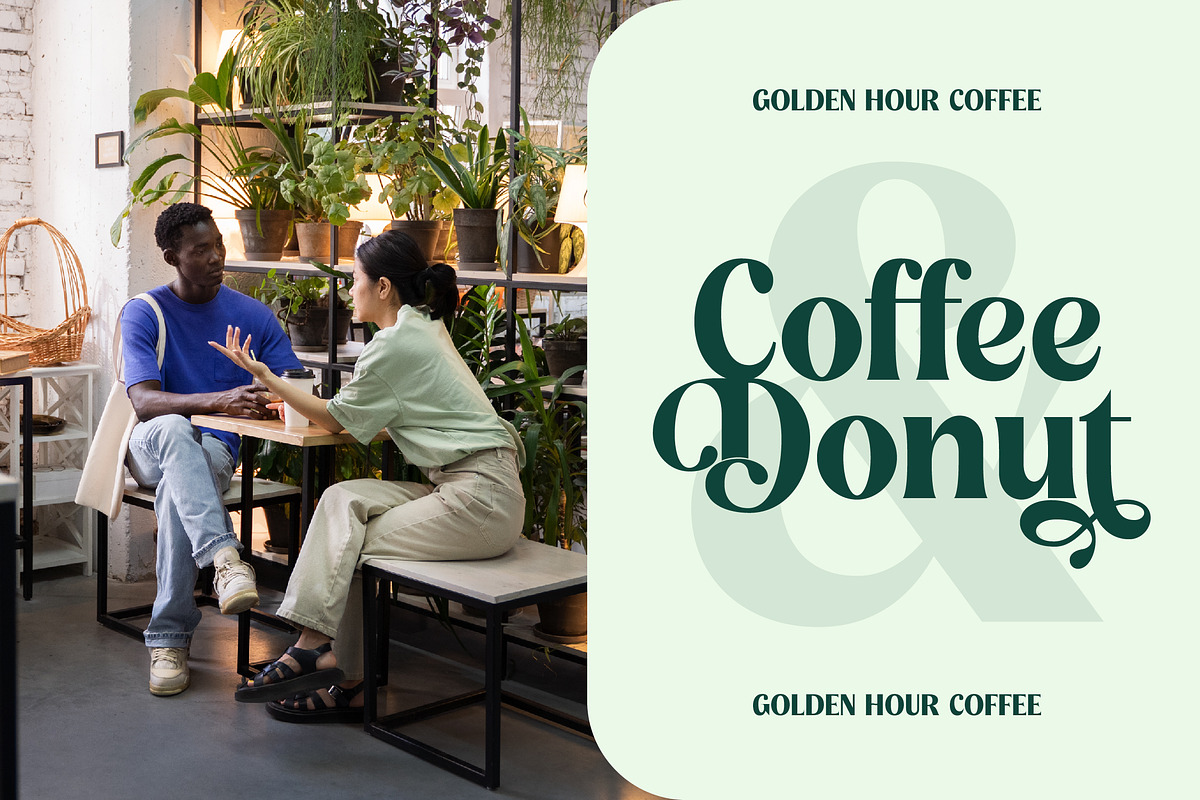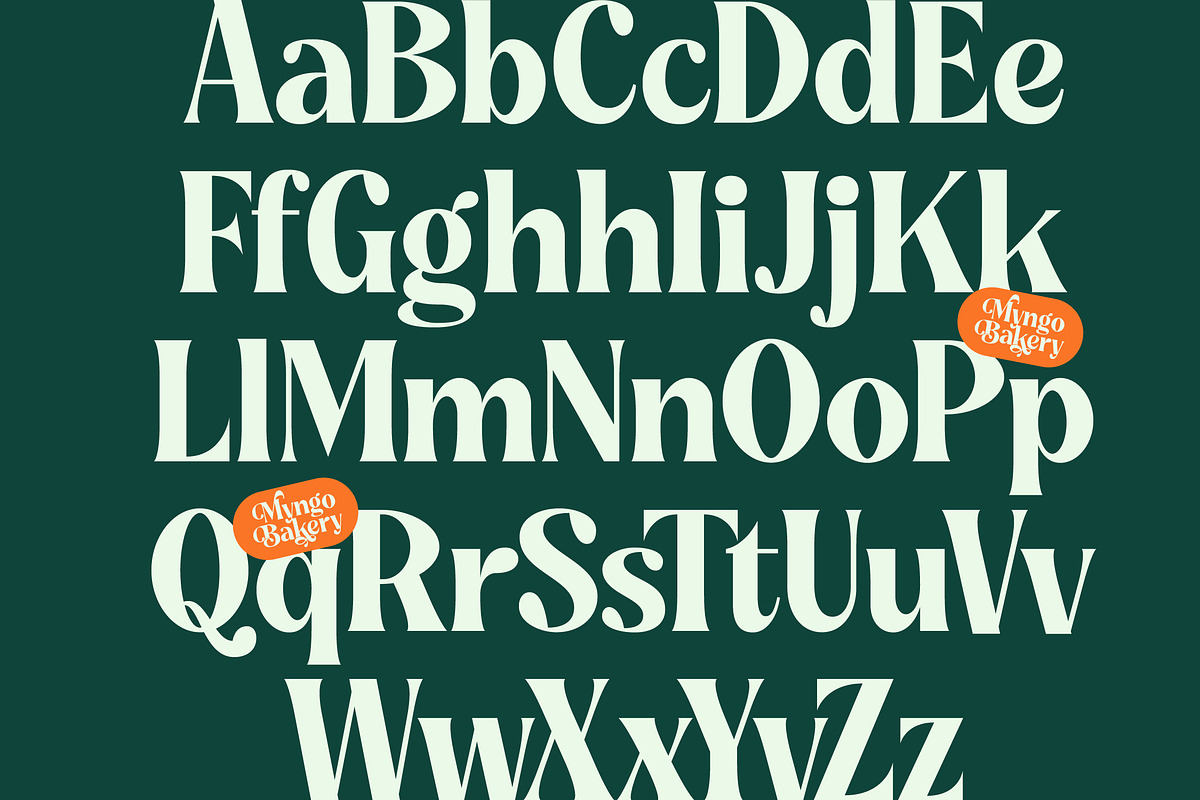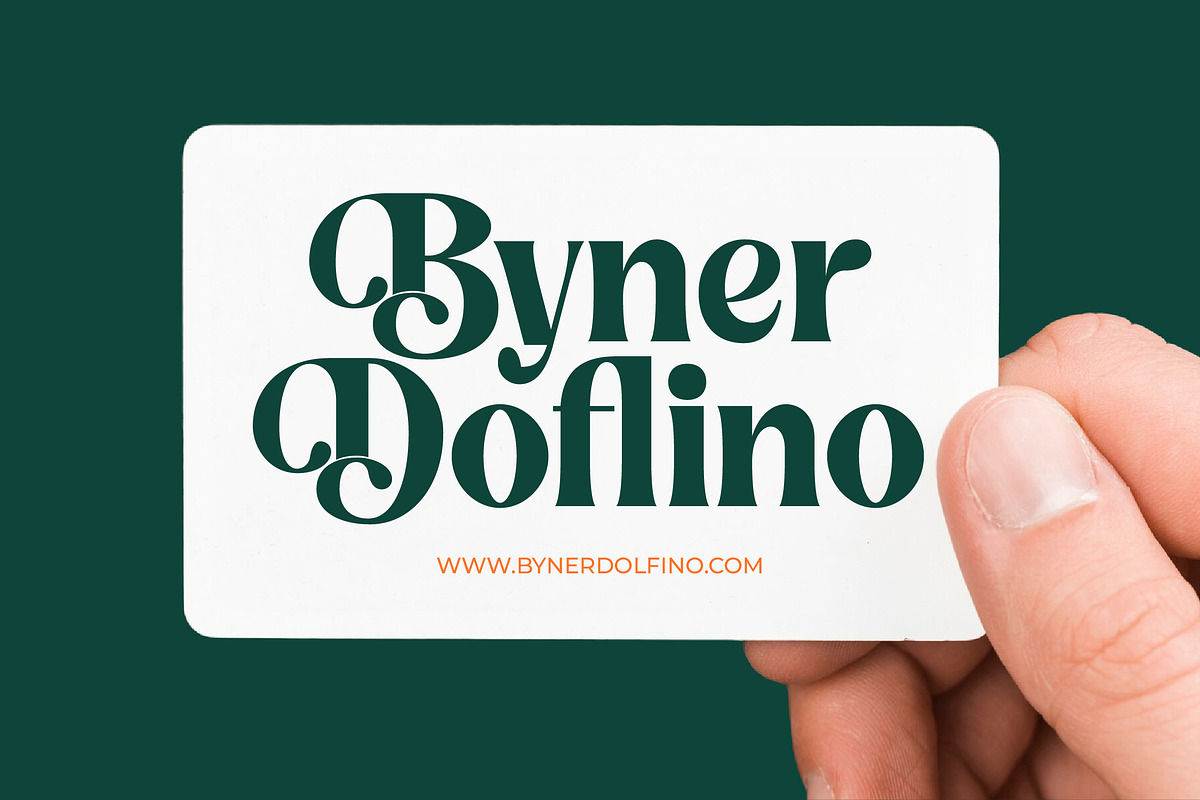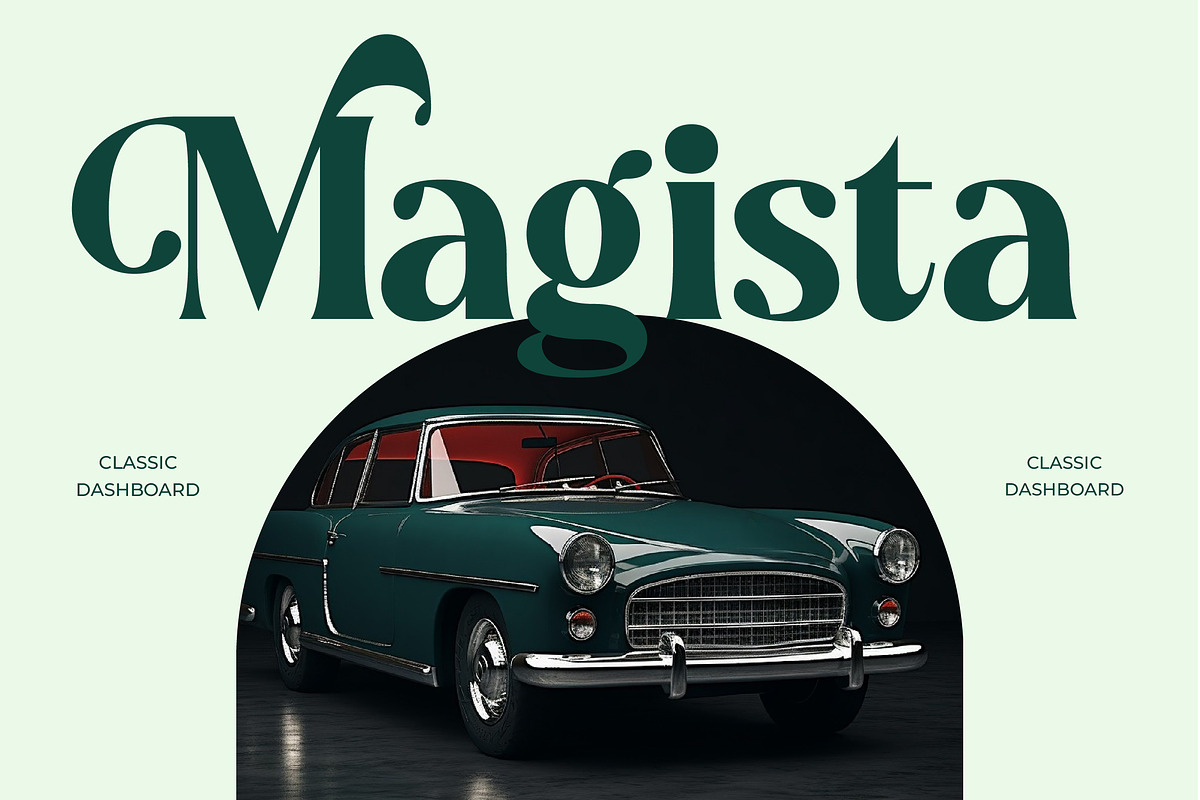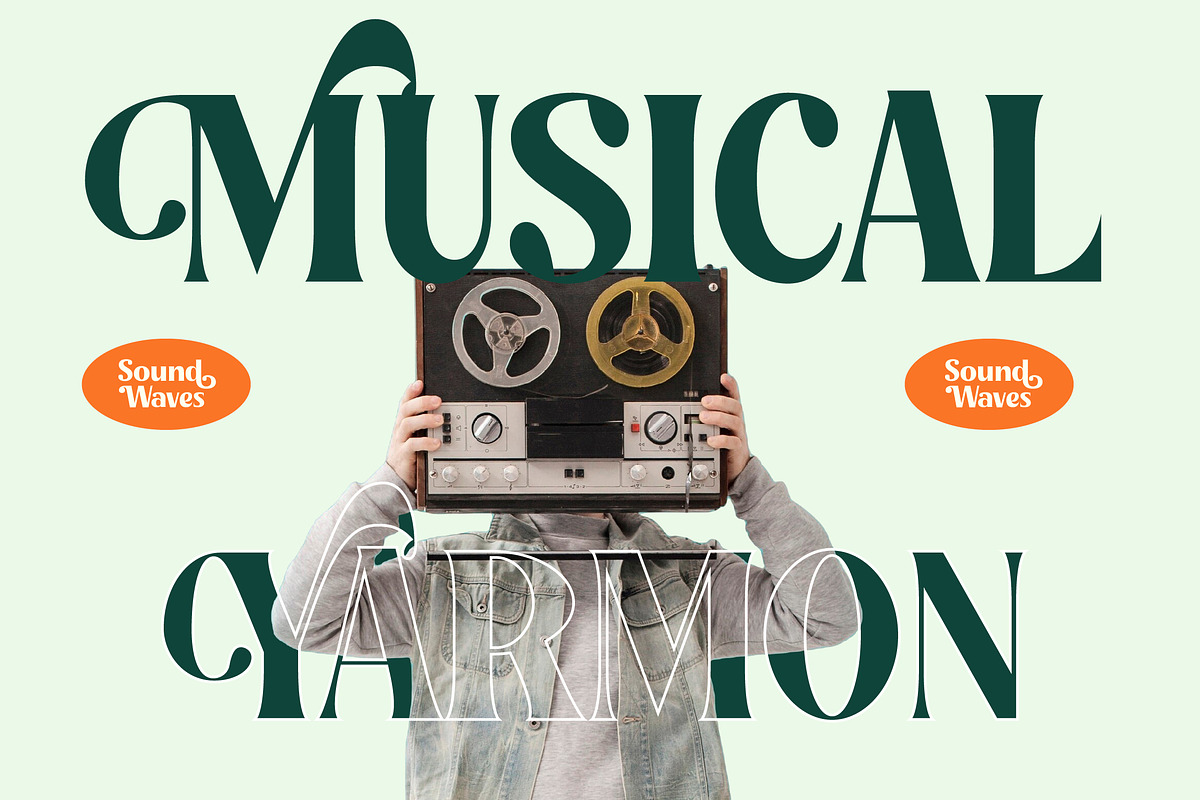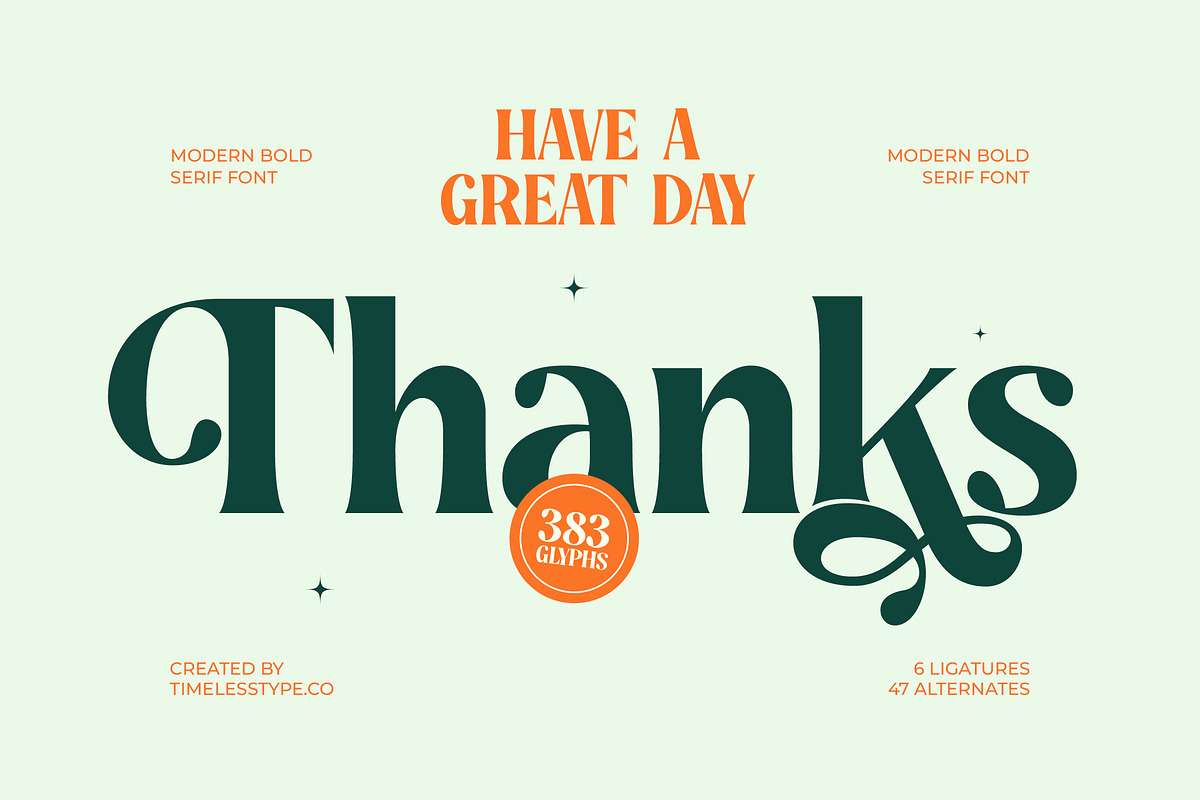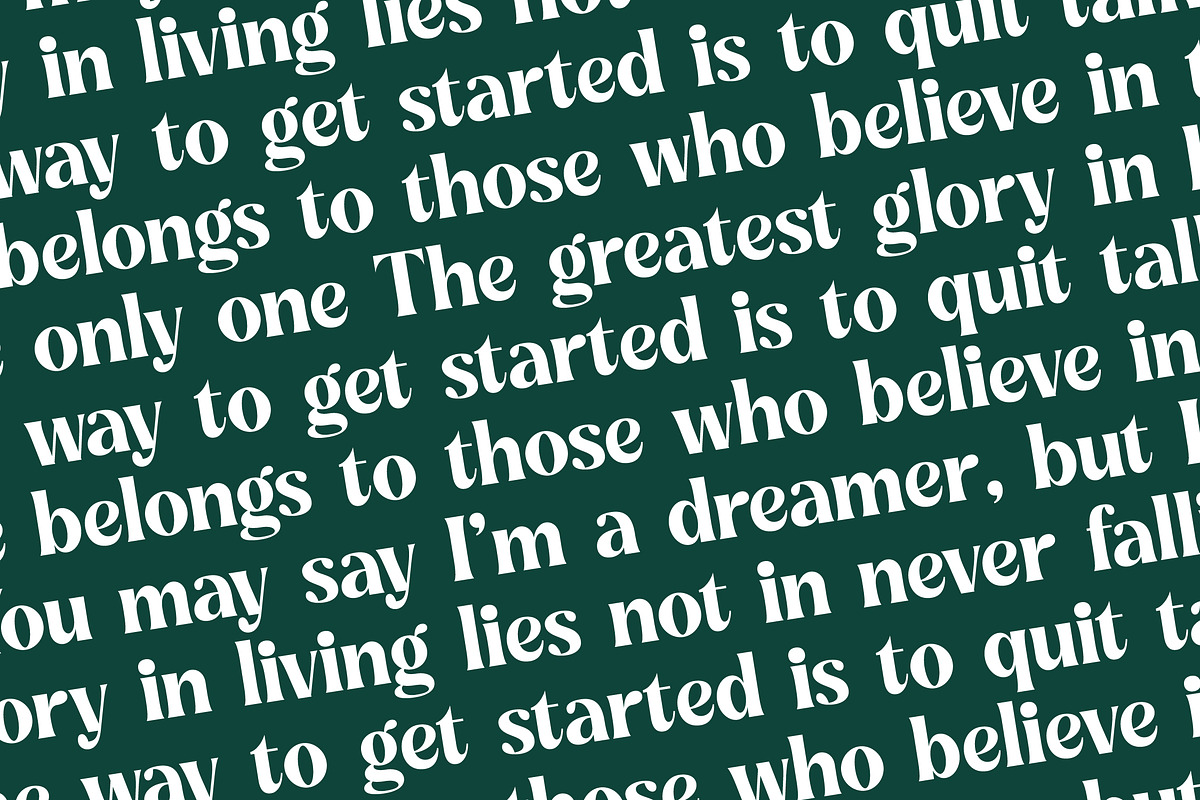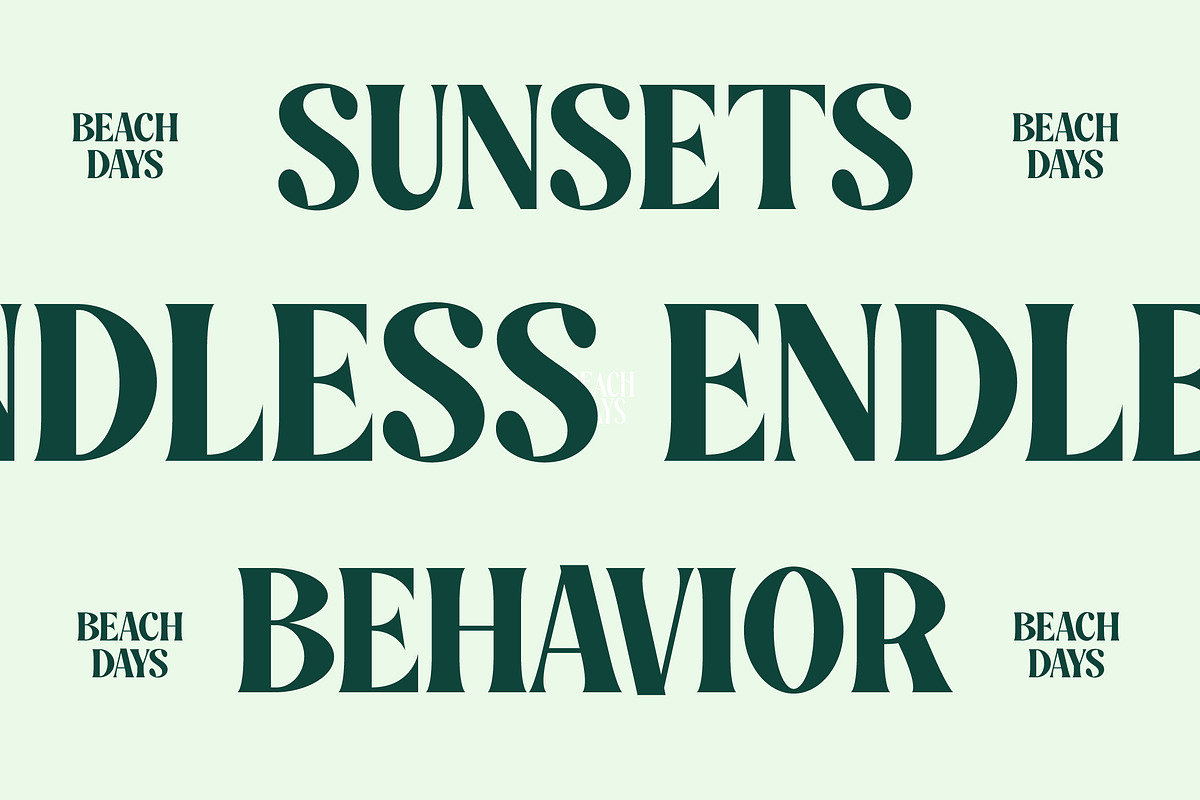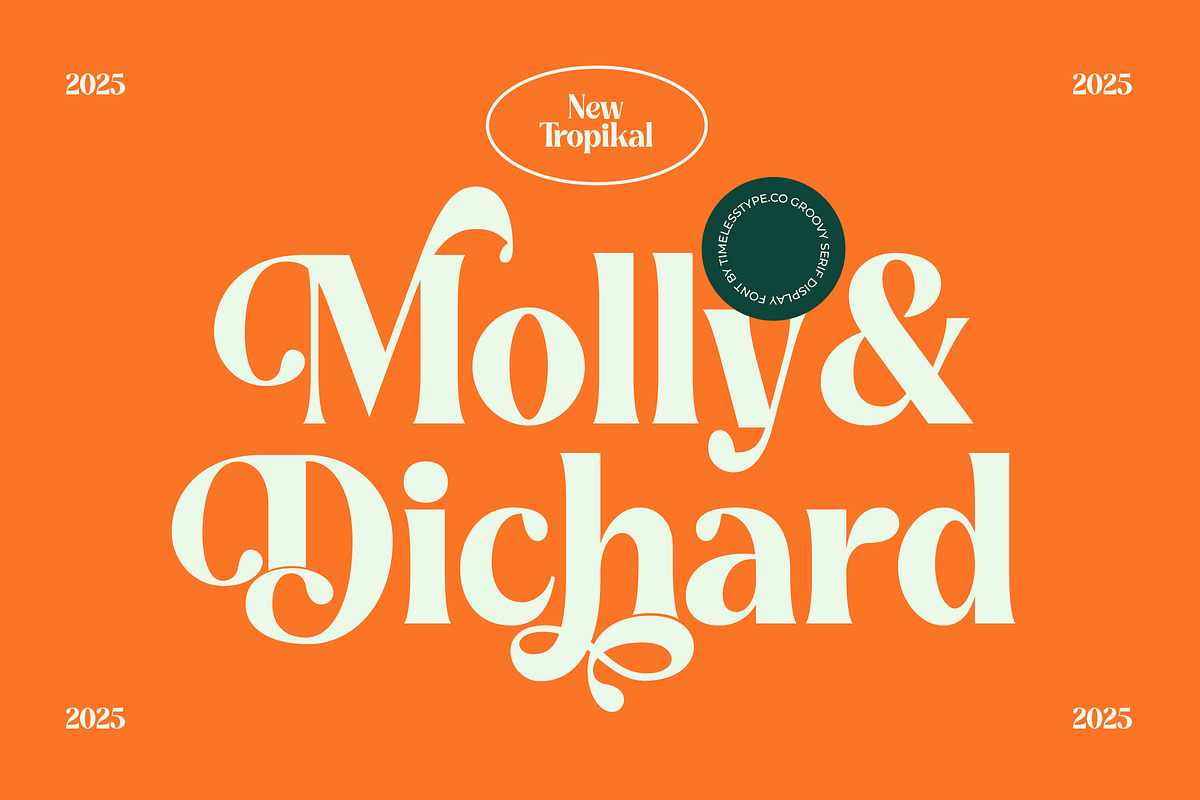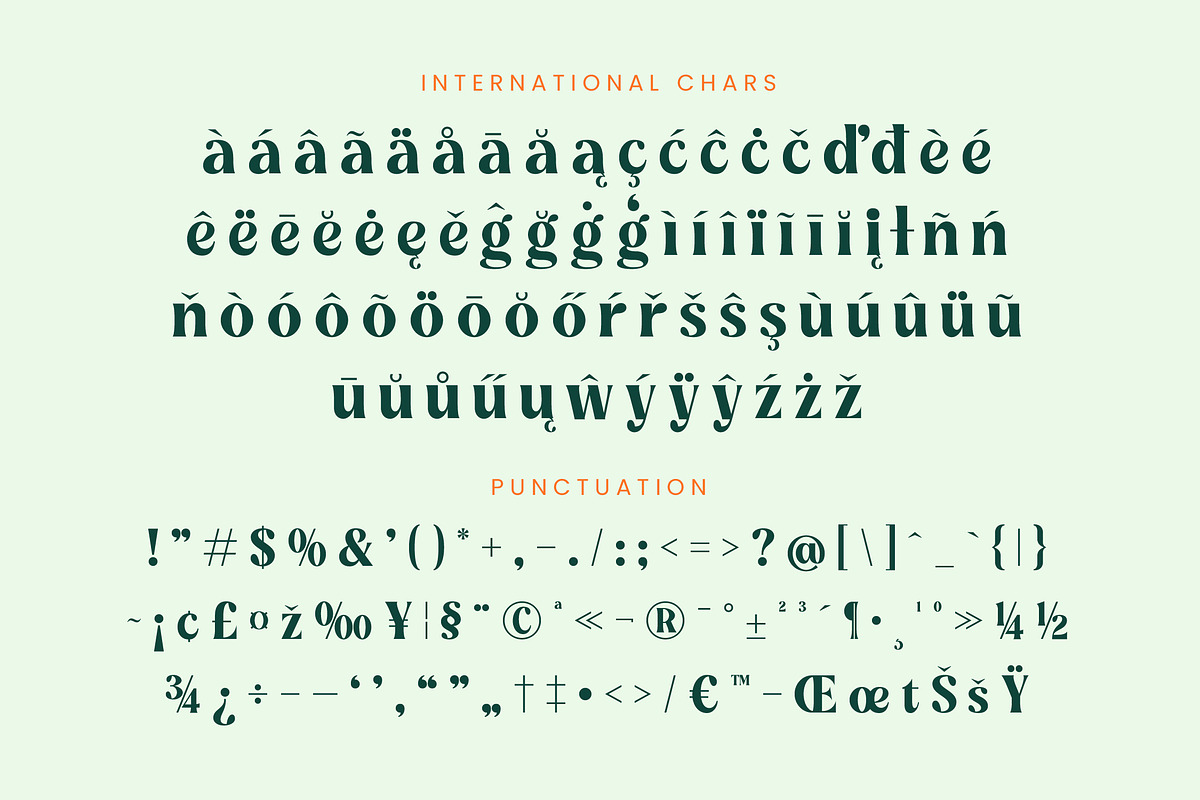
Myngo Bakery Modern Serif Font
Myngo Bakery is a masterclass in typographic elegance, blending soulful curves with a bold, contemporary presence that commands the spotlight. It transforms every single word into a visual feast for the eyes, ensuring your message is felt as much as it is read.
Inspired by the artisanal charm of boutique bakeries and high-end editorial layouts, this typeface draws from mid-century warmth and modern refinement. Its fluid lines evoke the scent of fresh ingredients and the precision of a master craftsman’s hand, creating an atmosphere of curated luxury.
This modern serif display demands attention with its unique blend of sophistication and approachability, making it a powerhouse for luxury typography. Its high-contrast serif details create an unforgettable editorial font aesthetic that ensures your creative projects deliver a massive branding impact across all mediums.
Staying ahead of the modern serif trend, this typeface bridges the gap between classic nostalgia and futuristic minimalism. Designers seeking editorial display fonts will find that its character-driven typography provides the authentic, bespoke look currently dominating high-end design markets and social media aesthetics.
From the curves of a bespoke logo design to the sleek pages of high-fashion editorial, this font is built for ultimate versatility. It excels in upscale branding, artisanal packaging, romantic wedding stationery, and the fast-paced world of fashion marketing where personality is everything.
Unlock endless creative possibilities with a rich library of ligatures and unique alternates that allow for custom-tailored layouts in every project. The set includes decorative swashes and full multilingual support with international characters to help your brand reach a truly global audience.
- Ligature 06 Alternate 047